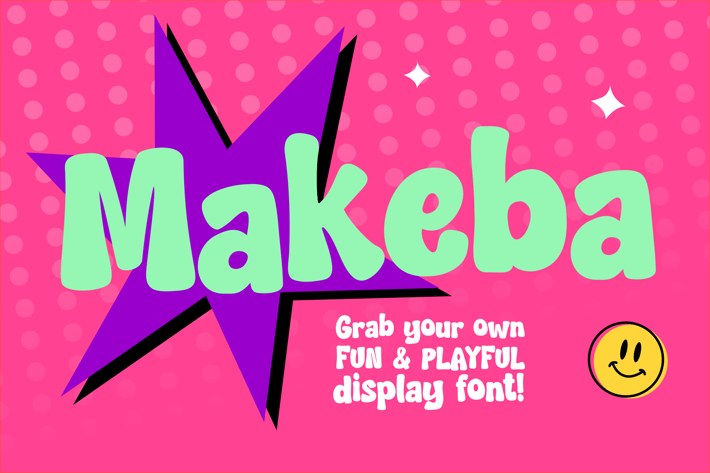
Playful Font - Makeba
Makeba
A playful kids display font with rounded, chunky shapes and a bubbly baseline—designed for joyful impact.
MAKEBA delivers instant cheer with its soft-edged curves, bold silhouette, and dynamic flow that mirrors the movement and energy of children at play. Its friendly, oversized letters bring warmth to any layout, making it the perfect fit for children’s products, playful branding, and educational materials. Every character feels like it's hopping or giggling—just like its intended audience.
MAKEBA is the go-to font for designers creating children’s books, classroom posters, kids event invites, or learning apps. Its childlike spirit is ideal for crafting environments full of joy, imagination, and discovery. Whether you're launching a preschool brand, developing educational games, or designing packaging for kids' toys, MAKEBA ensures your visuals feel fun, safe, and creative.
Kid-Friendly Energy
- Cheerful rounded edges and bouncy proportions
- Visually engaging for early readers and young audiences
Ideal for Playful Design
- Great for toys, preschool branding, storybooks, and party graphics
Bold and Easy to Read
- Strong character weight for clear visibility
- Optimized letter spacing for friendly legibility